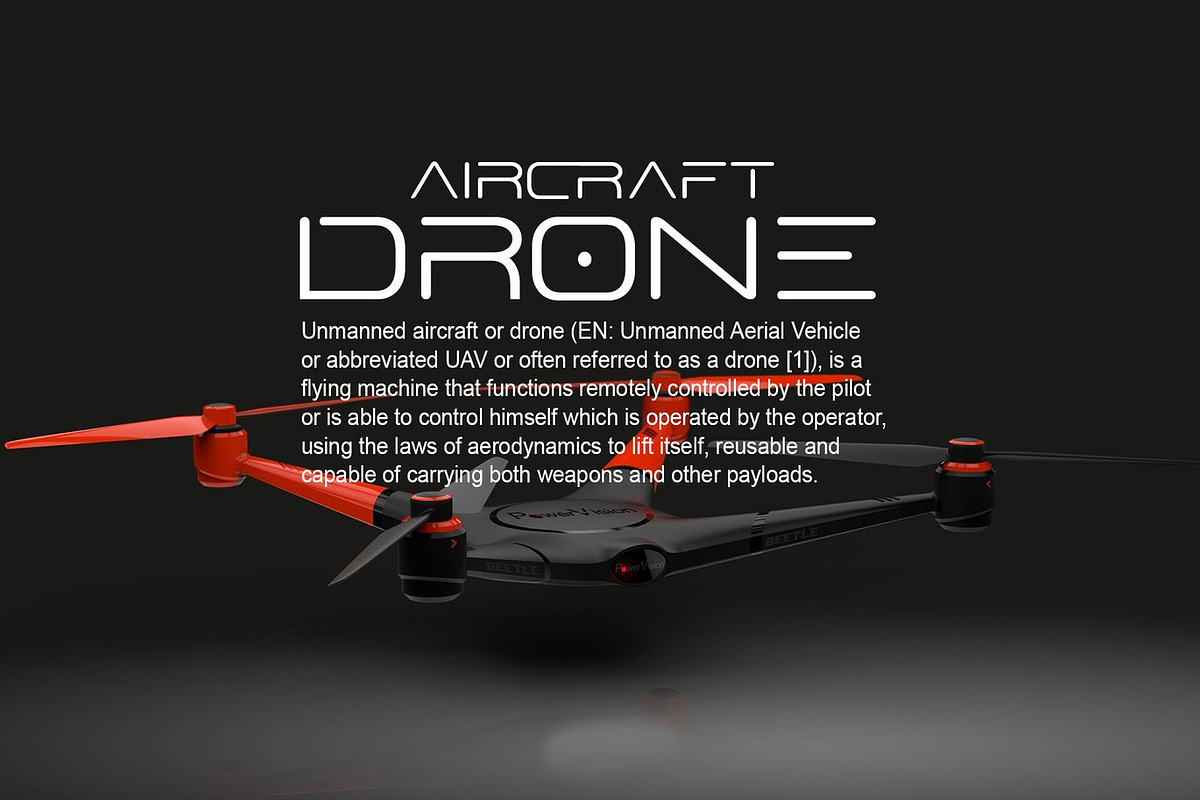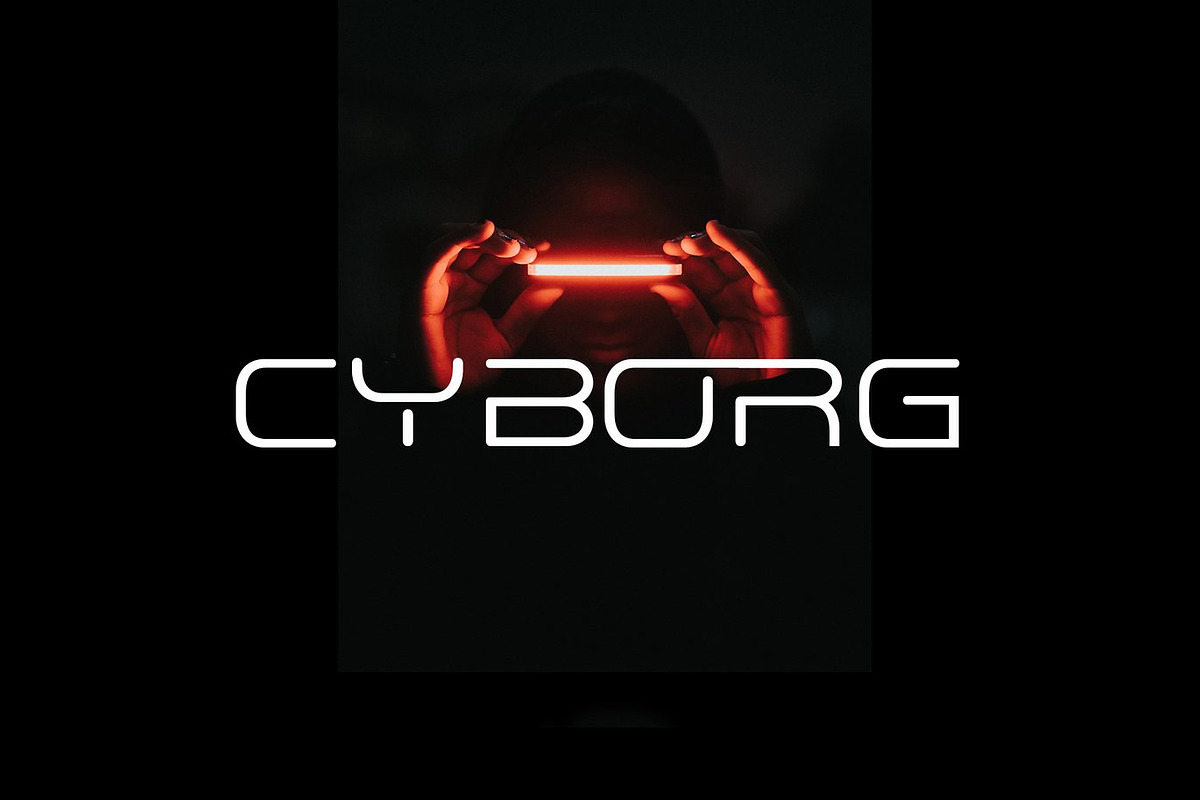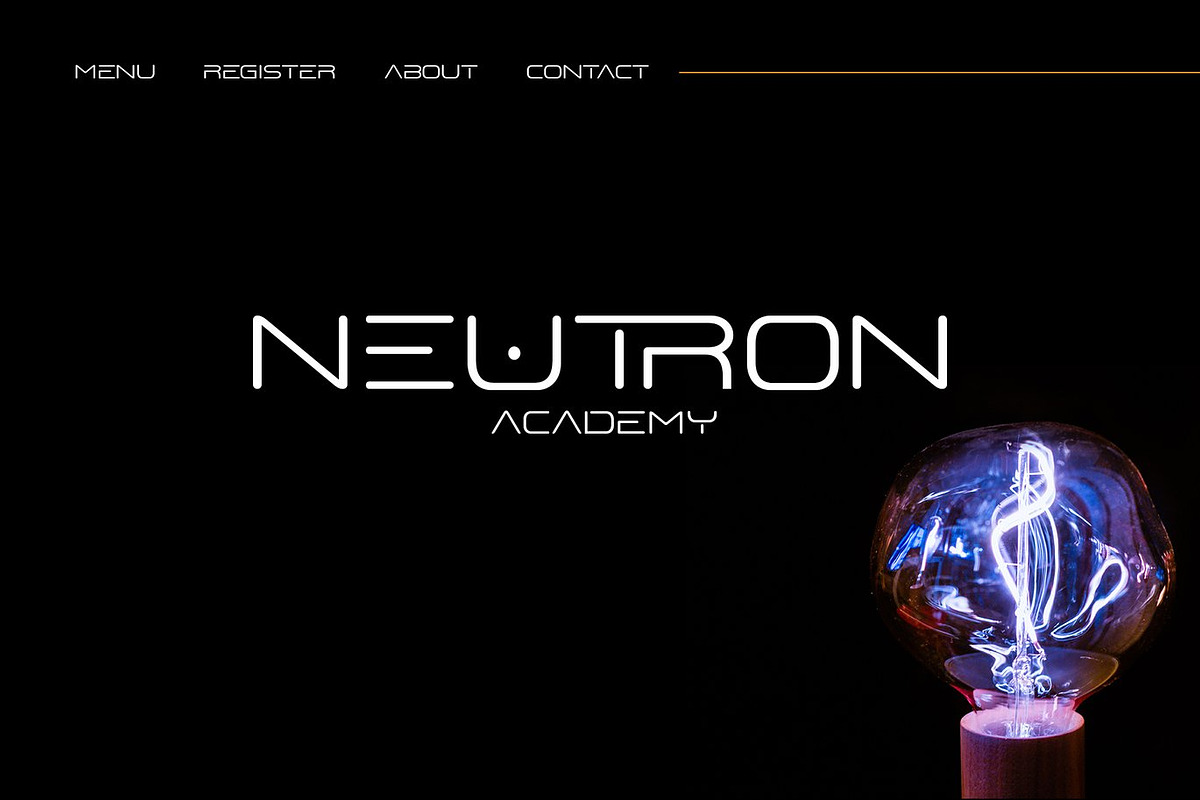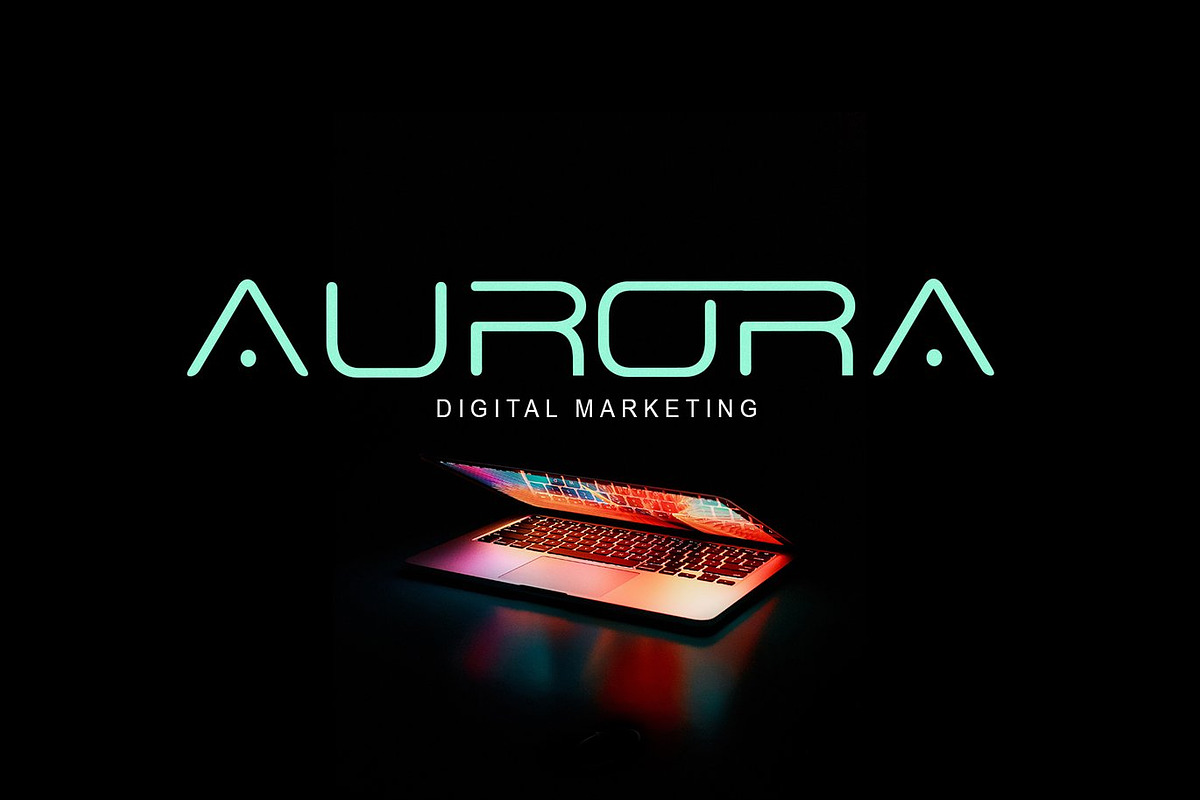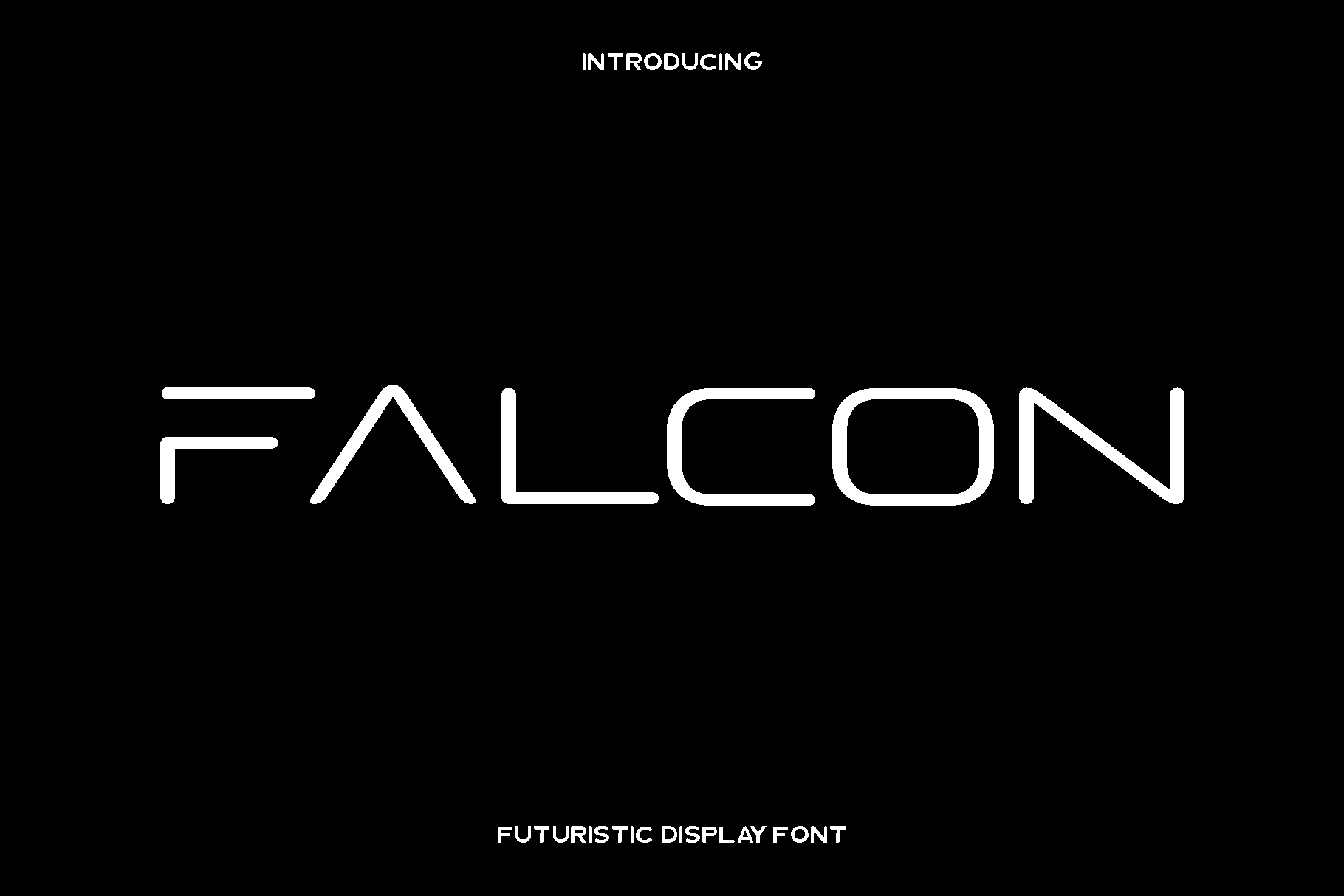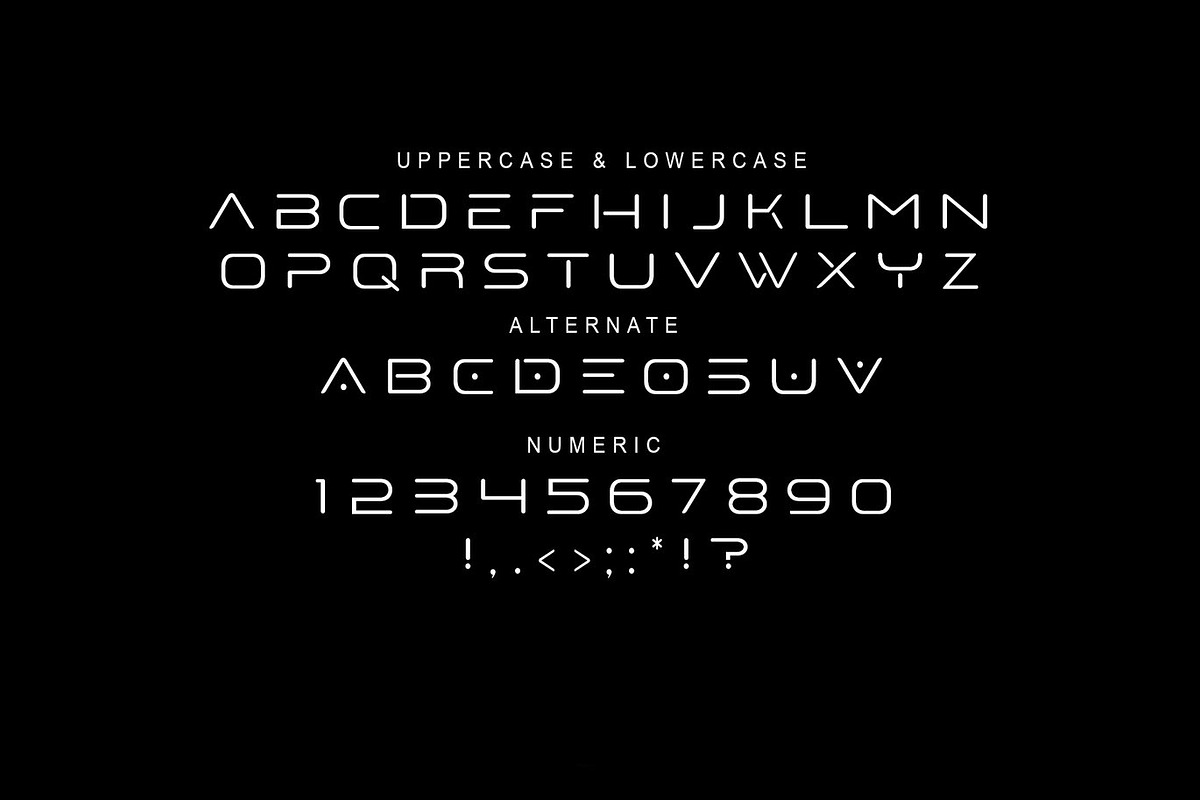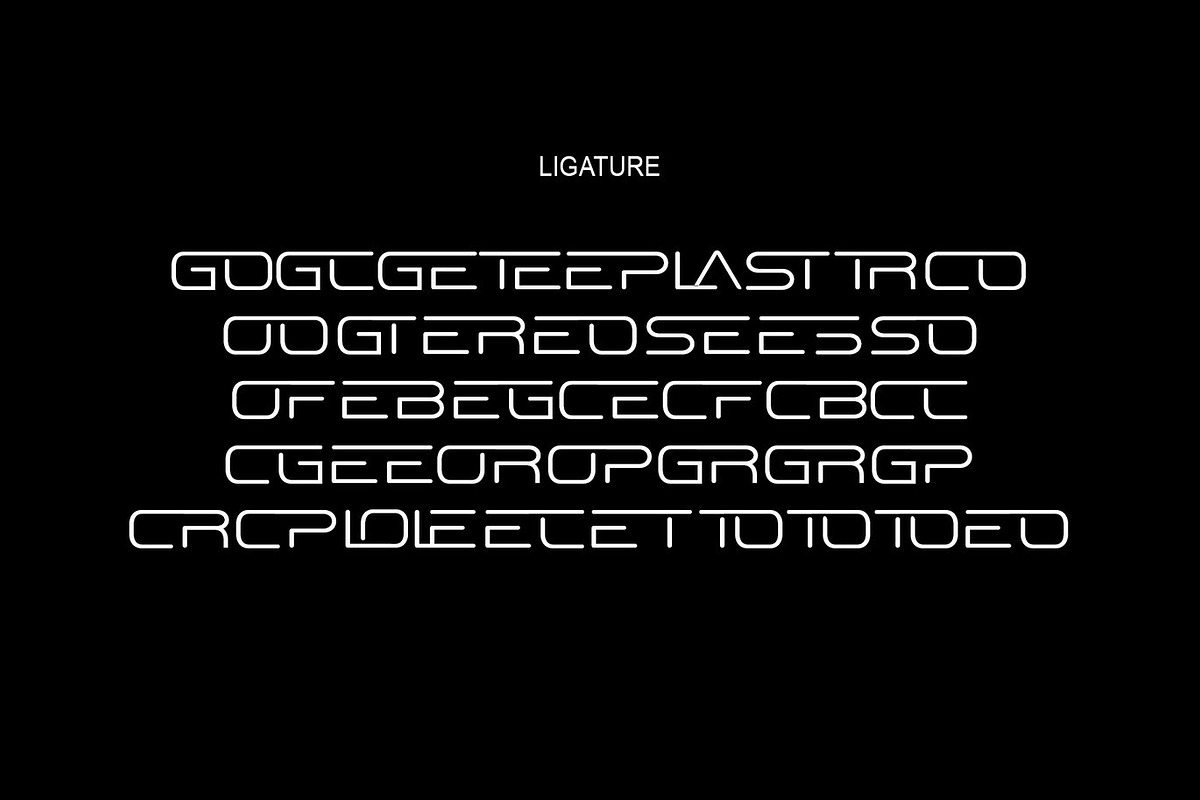
Falcon - Modern Display Font
Falcon is a cool and futuristic display font designed to bring speed, confidence, and modern attitude into your typography. Inspired by sharp forms, digital aesthetics, and forward thinking design, Falcon delivers a bold visual voice that feels innovative and energetic. Its distinctive letterforms are crafted to stand out instantly, giving your text a powerful and memorable presence.
This font shines in projects that demand a unique and contemporary look. Falcon is ideal for web design, technology branding, business cards, gaming visuals, startup identities, posters, and digital advertising. Its futuristic style adds a sense of motion and precision, making it perfect for headlines, logos, and creative layouts that aim to capture attention in seconds.
Falcon feels modern, edgy, and confident. The included alternates and ligatures allow designers to experiment with different typographic expressions, adding flexibility and creativity to every project. Whether used in digital interfaces or print materials, Falcon maintains clarity while delivering a strong futuristic impact.
Built for designers who want to push their visuals beyond the ordinary, Falcon transforms simple text into a bold design statement. Its unique character and clean structure make it a versatile display font for both professional and experimental projects.
Falcon Futuristic Display Font Features:
• Futuristic and stylish display characters
• Alternate and ligature characters included
• Uppercase and lowercase
• OpenType features
• Suitable for web, branding, and print use